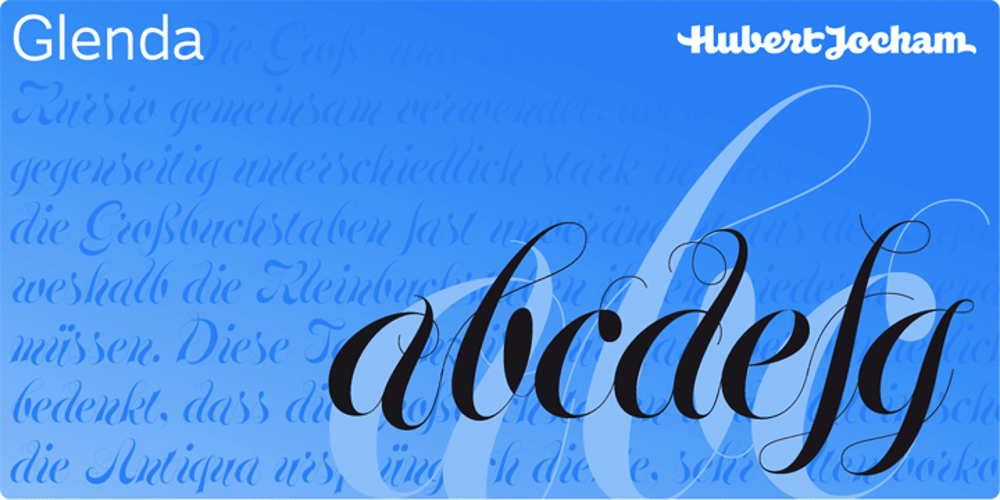
Glenda Font Family was designed by published by Hubert Jocham Type. Glenda contains 2 styles and family package options. Since I designed Mommie you can see a lot of script typefaces with big contrast for big sizes. With Narziss I created a roman interpretation with the very expressive Swirls version. Glenda is again an italic script like Mommie. In the Regular the characters join and it looks like a neatly written sprencerian handwriting. But like Narziss it has got a Swirls version too. Every glyph and swirl is carefully designed to work in every connection. Use Glenda at only very large sizes.